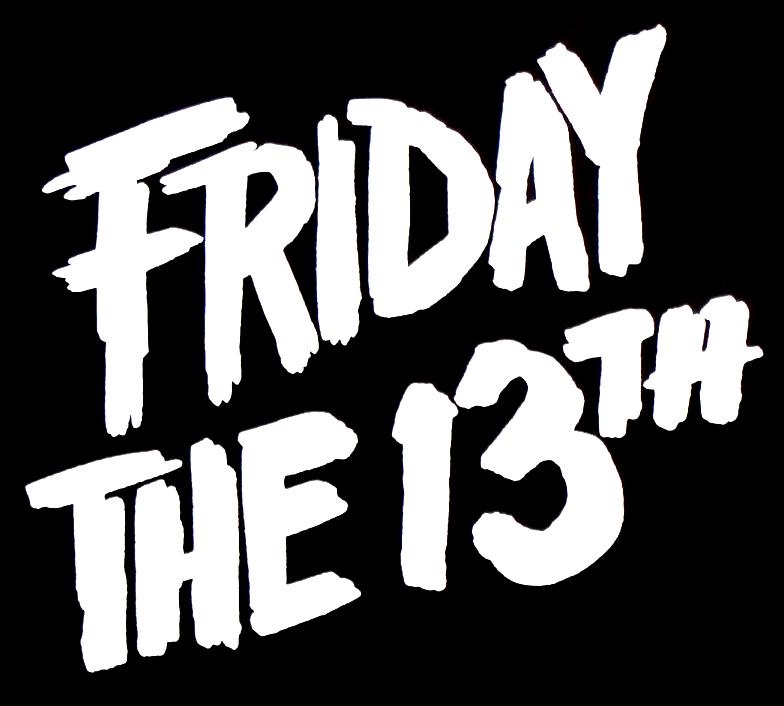
Friday The 13th Font Name
Friday the 13th font name. Other users also search for: Looking for friday the 13th fonts? The font used for the film title in the friday the 13th movie poster is very similar to friday13 designed by thomas w.otto in 1999.
This font is only free for personal use. The complete history of friday the 13th, inspired by peter m. Friday the 13th is an american horror franchise that comprises twelve slasher films, a television series, novels, comic books, video games, and tie‑in merchandise.the franchise mainly focuses on the fictional character jason voorhees, who was thought to have drowned as a boy at camp crystal lake due to the negligence of the camp staff.decades later, the lake is rumored to be cursed and is.
Friday 13 by norfok incredible font design. There was a lot of trouble in the wild west fonts as they were sans sheriff. Font designed by thomas w otto and free for personal use.
The font used for the film title in the poster is very similar to friday13 designed by thomas w.otto in 1999. That has totally based on a movie whose name is friday the 13th. Donation can be made via 7ntypes paypal account c7nazara[at]gmail.com.
We’ve ventured into our font library dungeons for these expressive, sometimes sinister picks that will set a deliciously dark mood over anything you. A friday the 13th fan film) as jason voorhees, as well as newcomer kelly tappan, peter anthony (steve dash: That has specially designed by norfok incredible font design for the first time.
That an american horror franchise that releases twelve films, one television series, novels, comic books, and video games. Making the web more beautiful, fast, and open through great typography Friday the 13th font is a fancy horror font that has awesome bold texture.
Friday the 13th is an american horror franchise that consists of twelve slasher films, a television show, novels, and comic books.the main villain in the series is jason voorhees, who drowned at camp crystal lake as a boy due to the negligence of the teenage counselors.decades later, the lake is rumored to be cursed and is the setting for a series of mass murders. Use the text generator below if you want to create text graphics with the font online. Every font is free to download!